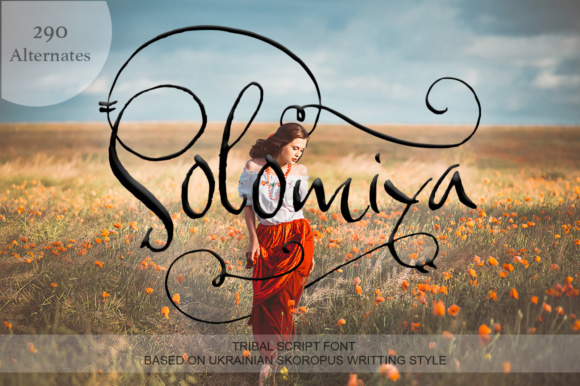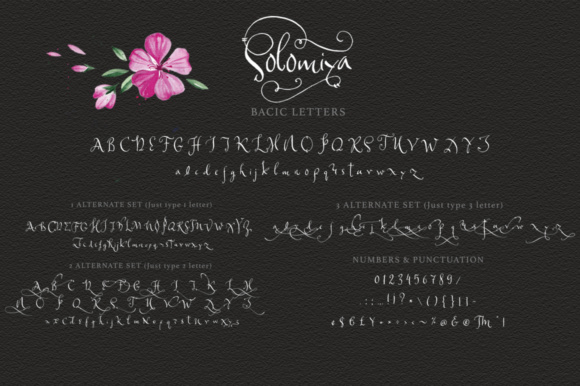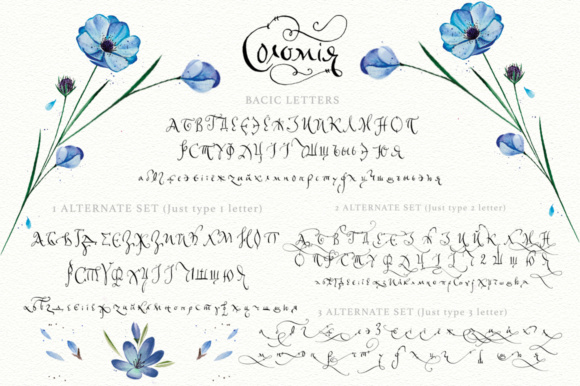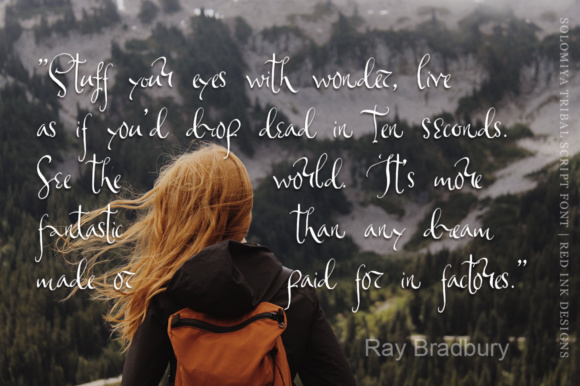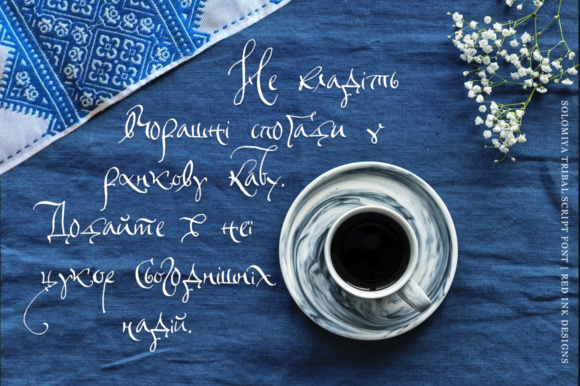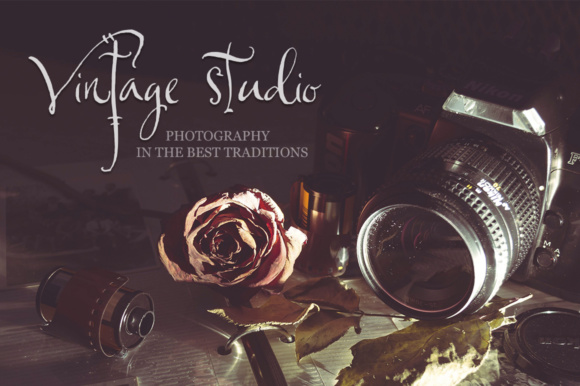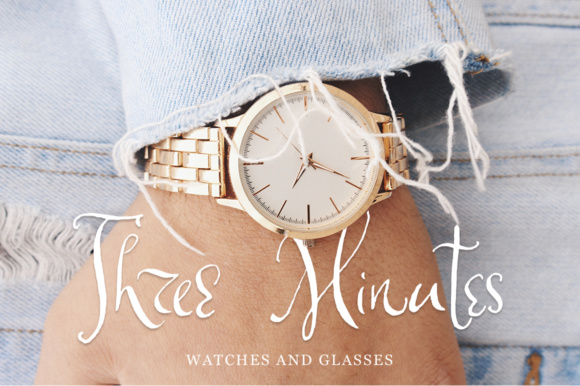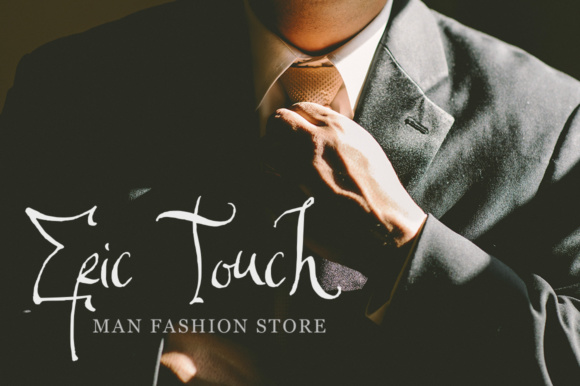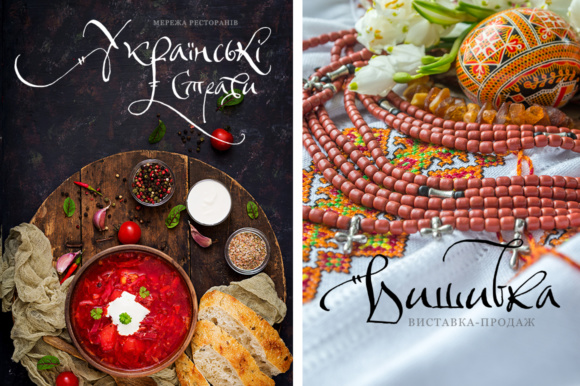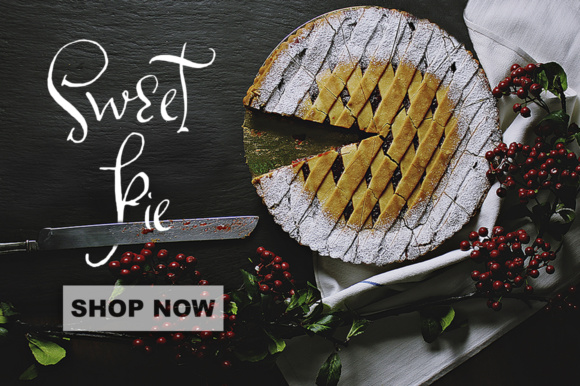
Solomiya Font
About Solomiya Font
Solomiya is a beautiful and unusual display script font, ideal for use in a wide range of project types that need a handwritten yet sophisticated type.